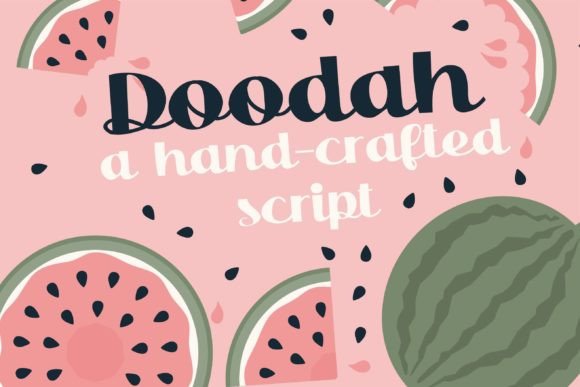
Doodah
The first time I saw Doodah, it felt like a warm hand reaching out from the page. It’s not the kind of font that demands attention—it invites you in. With its flowing curves and subtle weight shifts, Doodah carries a sense of elegance that feels both modern and timeless. It's the kind of typeface that could easily sit on a shelf next to classic script fonts, yet still manage to feel fresh and relevant in today’s design landscape.
Doodah belongs to the Script Amp family, which is known for its expressive and artistic flair. While it shares some characteristics with other script fonts, Doodah has a unique rhythm that makes it stand out. The letters feel natural, almost like they were written by hand, but with a level of precision that suggests professional use. This balance between artistry and structure makes it versatile enough to work across a wide range of design applications.
In logo design, Doodah can be a powerful tool. Its fluid lines and organic shape make it ideal for creating a visual identity that feels personal and memorable. However, it’s important to note that Doodah isn’t always the best choice for every brand. For instance, if your brand leans toward minimalism or a more structured aesthetic, Doodah might come off as too ornate. That said, when used thoughtfully, it can add a touch of sophistication to a brand’s visual language.
When considering packaging design, Doodah’s legibility at a glance is a major plus. It works well on product labels where quick recognition is key. But don’t assume it will perform equally well everywhere. Large headlines, short phrases, and brand marks require careful consideration. Doodah’s decorative nature means it should be used strategically—perhaps as an accent rather than the primary text in most cases.
For editorial design, Doodah can bring a certain charm to headlines and pull quotes. Its personality is strong enough to stand out but not so overwhelming that it drowns out the content. In web design, however, readability becomes a critical factor. Testing Doodah in black and white is essential, especially for small text sizes. While it looks great in larger formats, it can become less legible when scaled down, which is something to keep in mind for digital projects.
Pairing Doodah with other fonts can significantly enhance its effectiveness. A sans serif font like Montserrat or a serif font like Playfair Display can provide contrast and balance. When using Doodah alongside a display font, ensure that the overall hierarchy remains clear. Avoid overcomplicating the layout—less is often more when working with such a stylized typeface.
Social media graphics are another area where Doodah shines. Its visual appeal makes it perfect for Instagram posts, Twitter headers, and Facebook banners. But again, moderation is key. Use Doodah sparingly in these contexts to maintain clarity and avoid overwhelming the viewer. It’s also worth testing how it performs in different color schemes and backgrounds to ensure it remains readable and impactful.
One of the things I appreciate most about Doodah is its ability to adapt. Whether it’s used in a logo, a poster, or a blog graphic, it maintains its character while fitting into the context of the project. That said, there are situations where caution is necessary. For example, using Doodah for supporting text or long paragraphs can lead to confusion. Its decorative nature is best reserved for headlines, quotes, and other short-form content.
Ultimately, Doodah is a creative font that offers a lot of potential. It’s not without its limitations, but those are part of what make it interesting. As a designer, it’s up to you to determine where it fits best in your workflow. Test it in real mockups, compare it with other fonts, and consider how it aligns with your brand’s identity and messaging.
If you’re looking for a font that can elevate your design projects with a touch of personality, Doodah is definitely worth exploring. Just remember to use it intentionally and with purpose. After all, great typography isn’t just about aesthetics—it’s about communication.